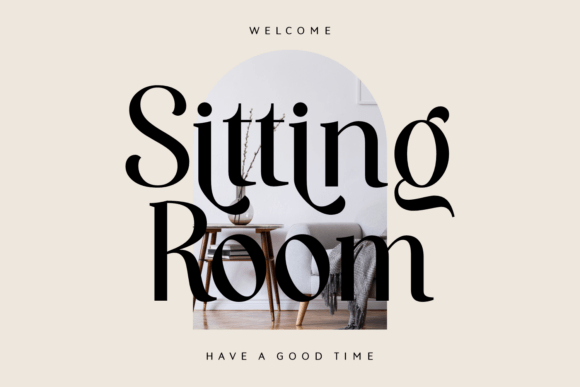
Introduction to Gulabu Font
As a designer, there’s nothing quite like the thrill of discovering a new design resource that elevates your creative project to the next level. It’s that moment when you stumble upon a font that perfectly captures the essence of your vision, and everything just falls into place. For me, that moment came when I discovered the Gulabu Font – a modern serif font that exudes elegance and sophistication.
With its clean lines and soft curves, the Gulabu Font is a game-changer for designers looking to add a touch of class to their work. Whether you’re working on a branding project, creating invitations, or designing a website, this font is sure to impress. And the best part? It’s available for free download, making it an accessible and valuable addition to any design arsenal.
So, what makes the Gulabu Font so special? Let’s dive in and explore its features, from its transparent background to its high-quality design, and discover why it’s a must-have for designers looking to elevate their creative projects.
Key Features of Gulabu Font
- Unique, modern font style perfect for making a statement in designs
Honest Review: Gulabu Font
I recently stumbled upon the Gulabu Font, a free design resource that I was excited to explore. As a designer, I’m always on the lookout for high-quality fonts to elevate my creative projects.
The first thing that caught my attention was the font’s unique and elegant design. It’s perfect for any project that requires a touch of sophistication and refinement. The Gulabu Font features a transparent background, which makes it easy to layer and combine with other design elements.
- ✨ Unique and elegant design
- ✨ Perfect for creative projects that require sophistication and refinement
- ✨ Easy to use and customize
- ⚠️ Limited character set – the font only includes a few characters, which may not be suitable for long-form text projects
- ⚠️ May not be suitable for body text due to its elegant and refined design
Overall, I’m impressed with the Gulabu Font and would recommend it to designers who are looking for a unique and high-quality font for their creative projects.
Gulabu Font
Gulabu Font is a high-quality design resource ideal for creative projects. This free download offers a unique and stylish touch to any design, thanks to its transparent background.
Getting the Most Out of Gulabu Font
- Experiment with different font sizes and styles.
- Combine Gulabu Font with other design elements for a unique look.
- Use the font on a transparent background to create a subtle effect.
Gulabu Font is ideal for a variety of design projects, including:
- Business cards and marketing materials.
- Wedding invitations and event materials.
- Branding and logo design.